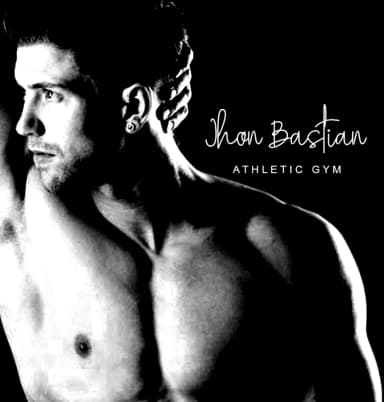
1 / 5About The Stylistic Sign Font
The Stylistic Sign Font by Haksen is a monoline handwritten script that captures the elegance of contemporary signature lettering. This refined typeface brings authentic pen-drawn character to your creative work, available in both Regular and Italic weights to suit different styling needs. The clean, flowing lines make it ideal for wedding stationery suites, personalized skincare product packaging, and high-end greeting card designs that demand a personal touch.
Whether you're designing elegant event signage for boutique venues, crafting social media headers for lifestyle brands, or developing custom letterheads that stand out in a crowded inbox, this font delivers sophisticated femininity without sacrificing readability. Its monoline structure ensures consistent stroke weight across every letter, making it equally effective at display sizes or smaller text applications. The pairing of Roman and Italic variants gives designers the flexibility to add visual hierarchy and emphasis where needed, creating dynamic compositions that feel intentional and polished.
This typeface works beautifully for boutique business stationery, wedding invitation suites, and luxury packaging design where handwritten authenticity matters. Creatives love the balance between organic character and technical precision that makes it both distinctive and legible. Add The Stylistic Sign Font to your library on Creative Fabrica to bring refined handcrafted elegance to your next design project.
The Stylistic Sign Font is a script font that shines as a display or heading face. Pair it with a clean sans-serif or serif font for body text β the contrast creates a clear hierarchy while the two styles stay balanced and easy to read.
The Stylistic Sign Font
by Haksen